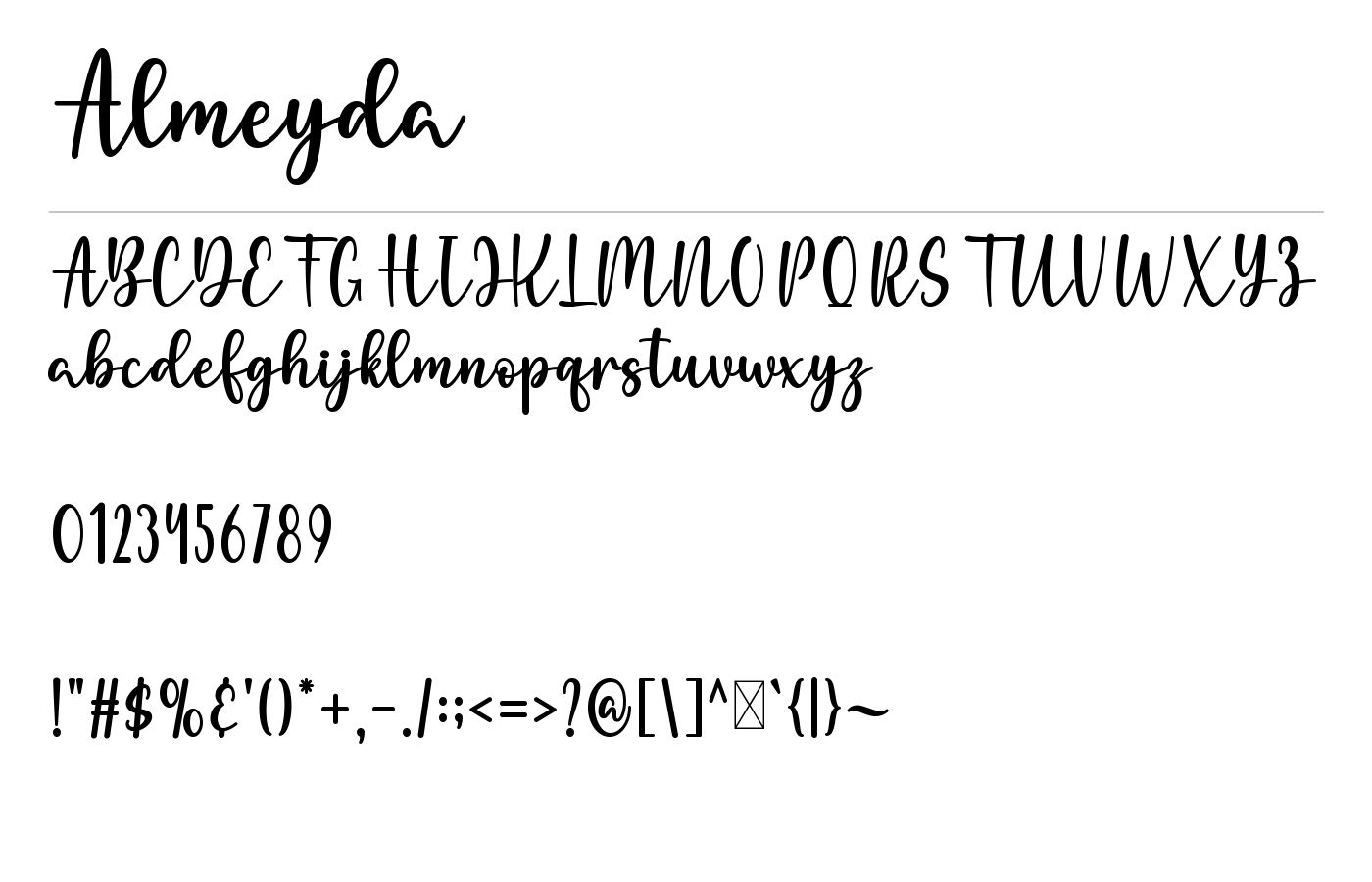
Almeyda is a playful and elegant script font with a light, flowing style that mimics natural handwriting. Its tall, slender letterforms with gentle curves and consistent stroke weight make it ideal for creative branding, invitations, and headlines where a personal, friendly touch is desired. This font works well for projects needing warmth and approachability without losing sophistication.
Almeyda Font
About Almeyda Font
| Font family | Almeyda Font |
| Designer | Wahyu Setiyawan |